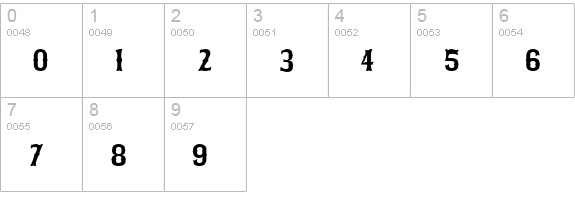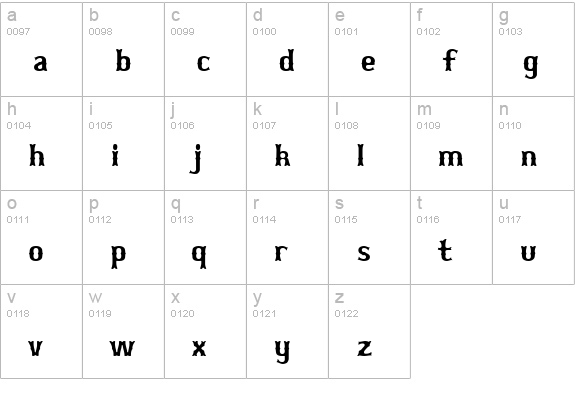
Bosox Font Details
Bosox font is a striking display typeface that perfectly captures the essence of strength and boldness. Its bold and angular letterforms exude a sense of power and confidence, making it an ideal choice for impactful headlines, logos, and branding projects. What makes Bosox font even more appealing is the fact that it is available for free! Yes, you read that right. This incredible typeface can be freely downloaded at FontsMarket.com, where you can access a wide range of high-quality fonts for all your design needs. With its unique and eye-catching design, Bosox font stands out from the crowd, making a powerful statement wherever it is used. Whether you're designing a sports-related project, a promotional banner, or a poster for an event, Bosox font is sure to leave a lasting impression. The versatility of Bosox font is another reason to love it. It can be easily adjusted to suit different styles and moods, allowing you to create customized designs that truly reflect your vision. Its clean and sharp lines make it highly readable even at smaller sizes, ensuring that your message is conveyed with clarity and impact. Don't miss out on the opportunity to enhance your designs with this incredible font. Download Bosox font for free at FontsMarket.com and unleash your creativity today.